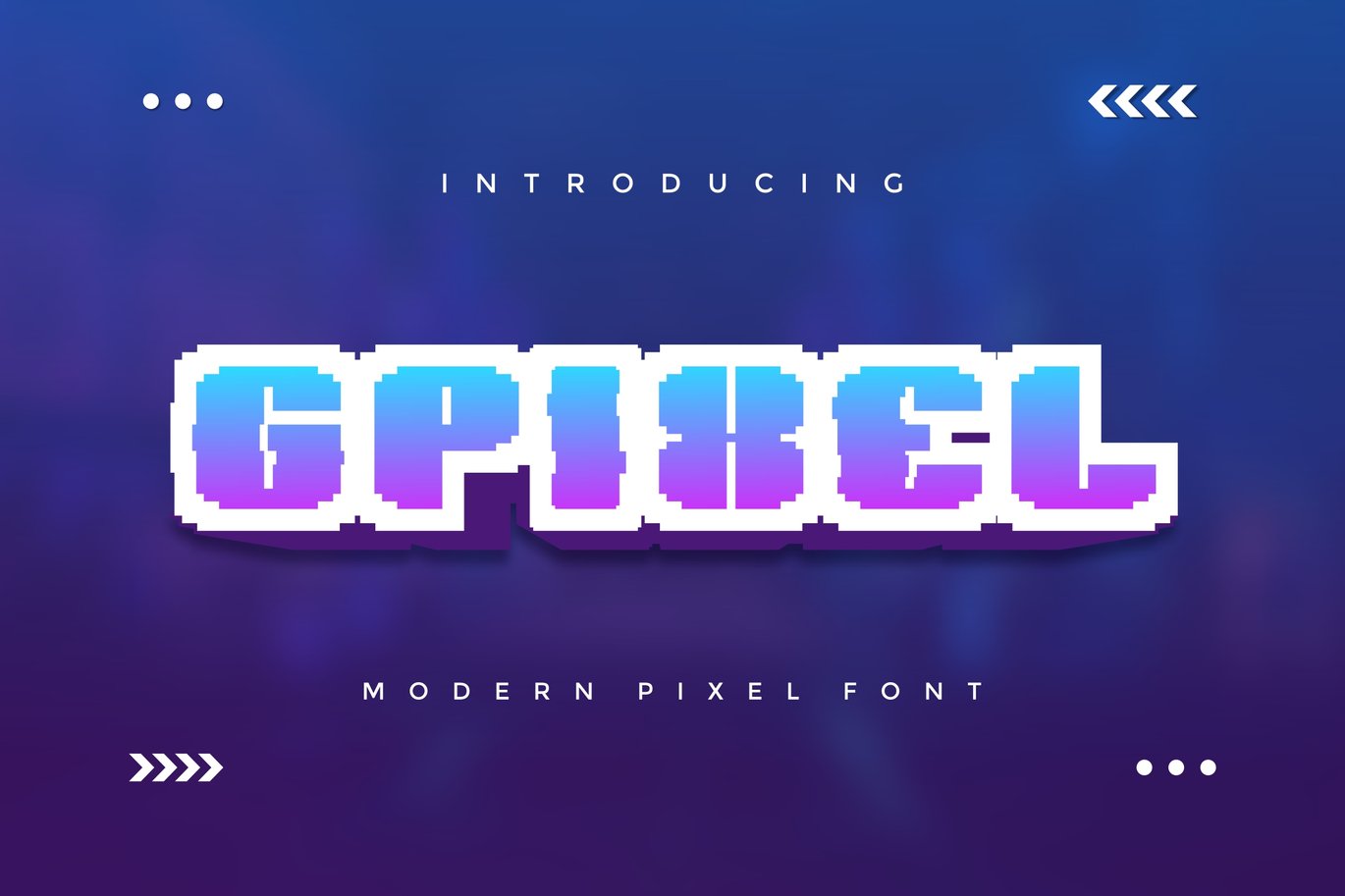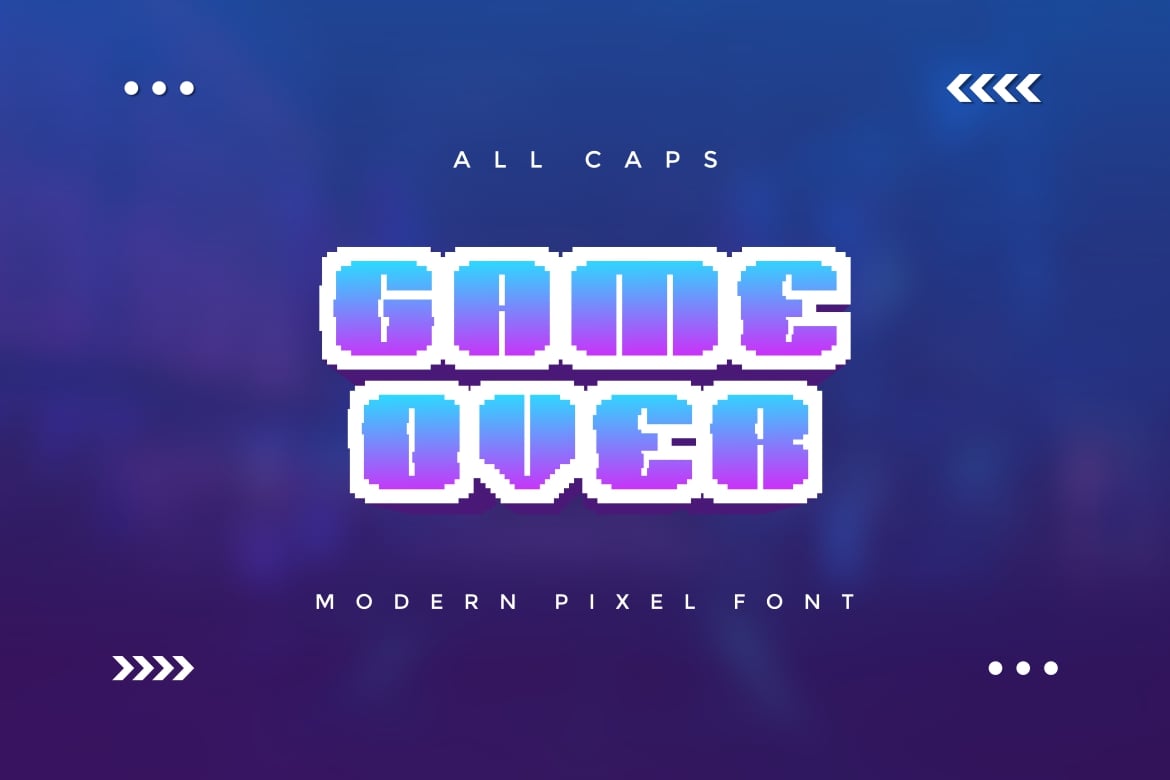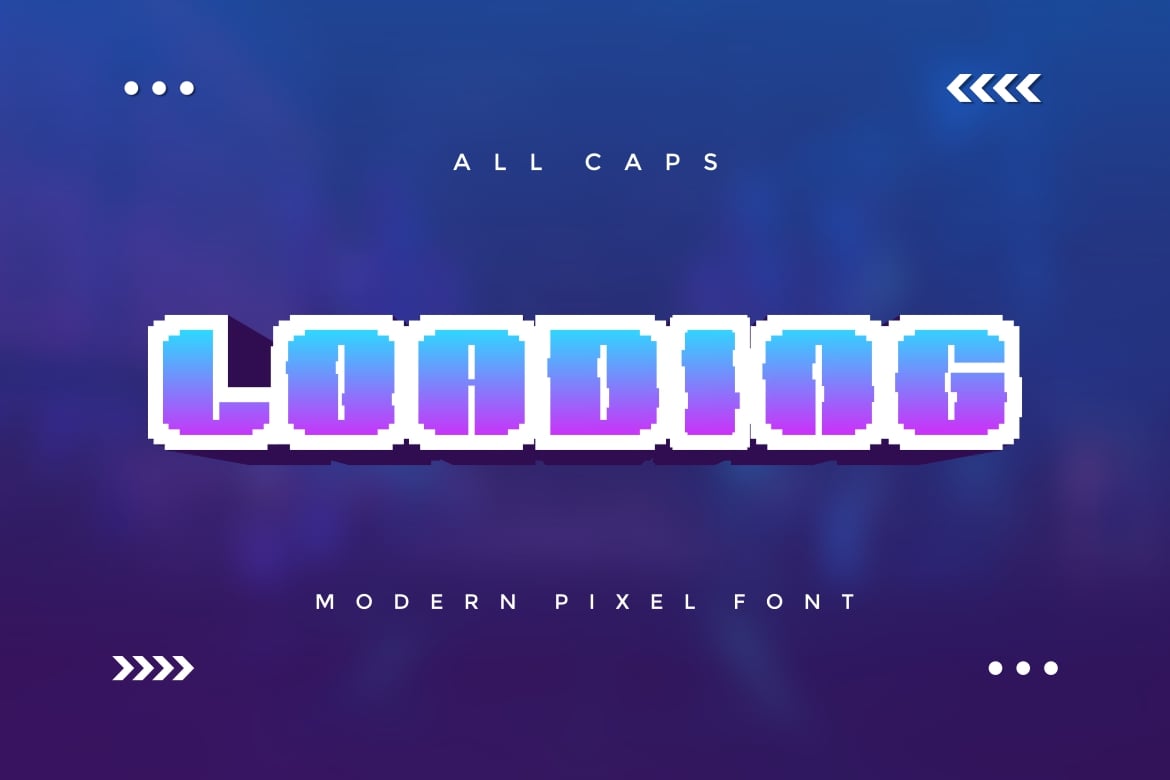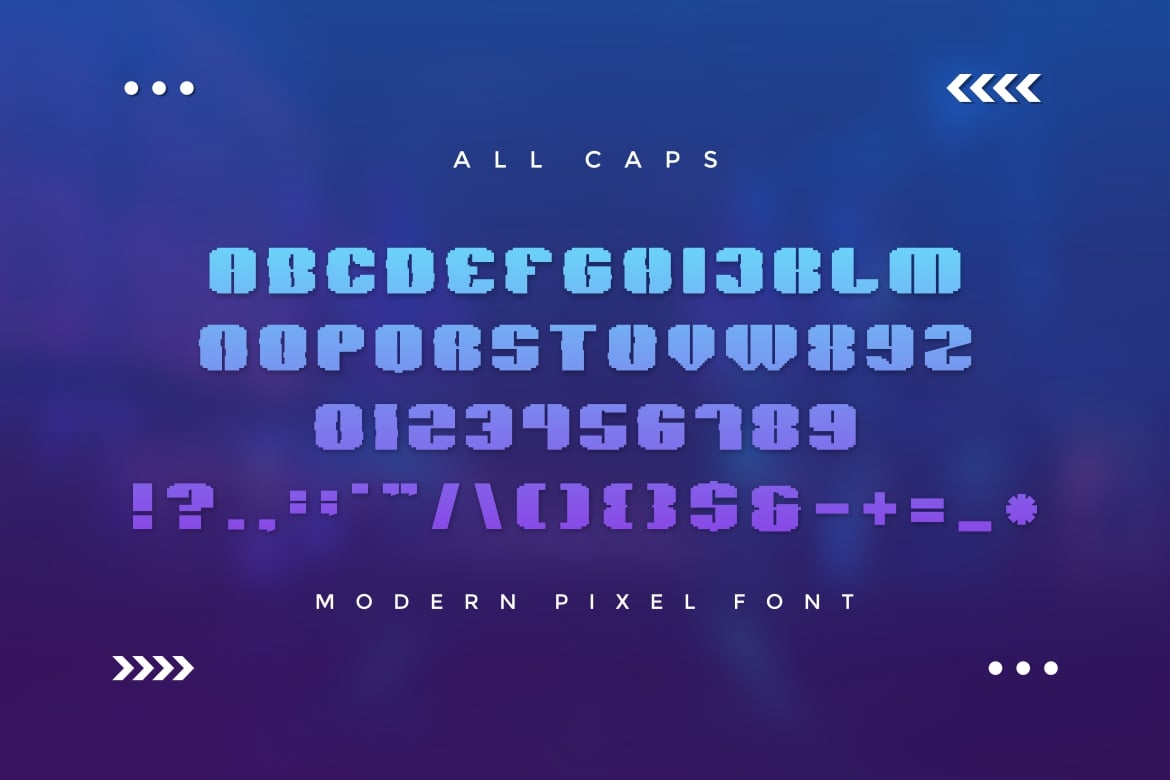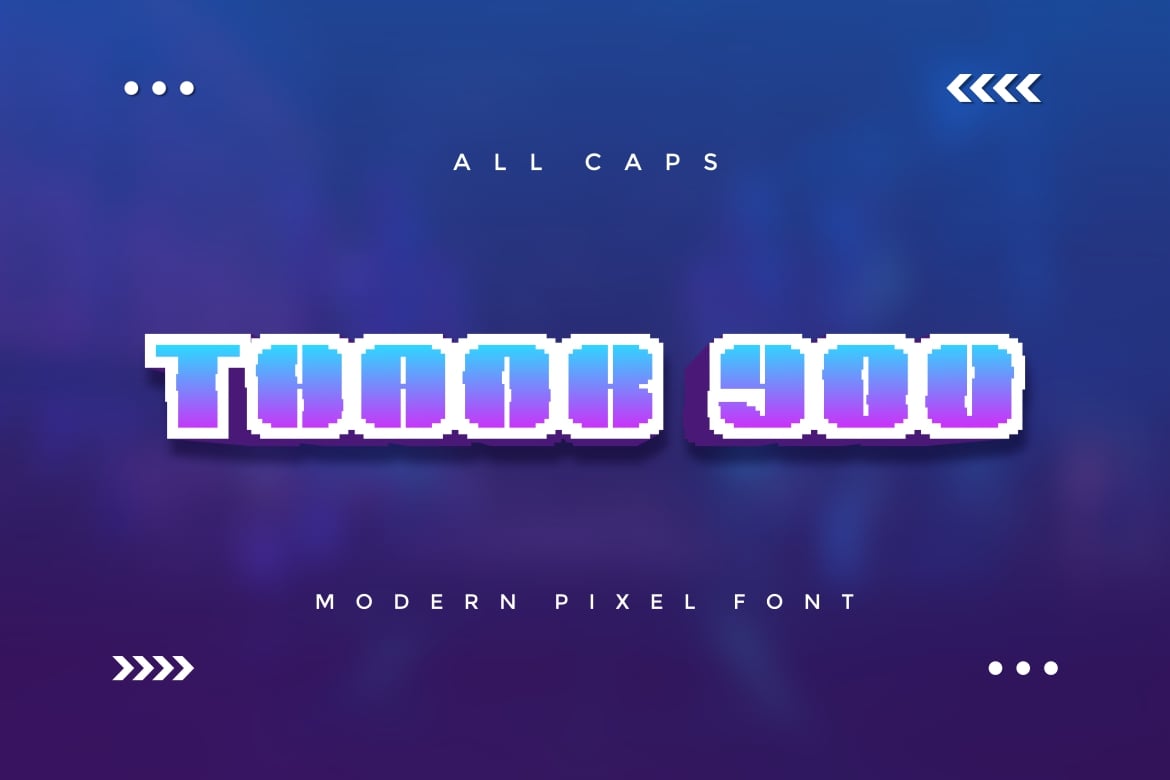
Gpixel – Modern Pixel Font
Introducing our new product Gpixel – Modern Font
Gpixel is a bold, modern display font with playful flair, ideal for attention-grabbing headlines, logos, and diverse design projects. Versatile and readable in both digital and print, Gpixel adds a dynamic touch to your message.